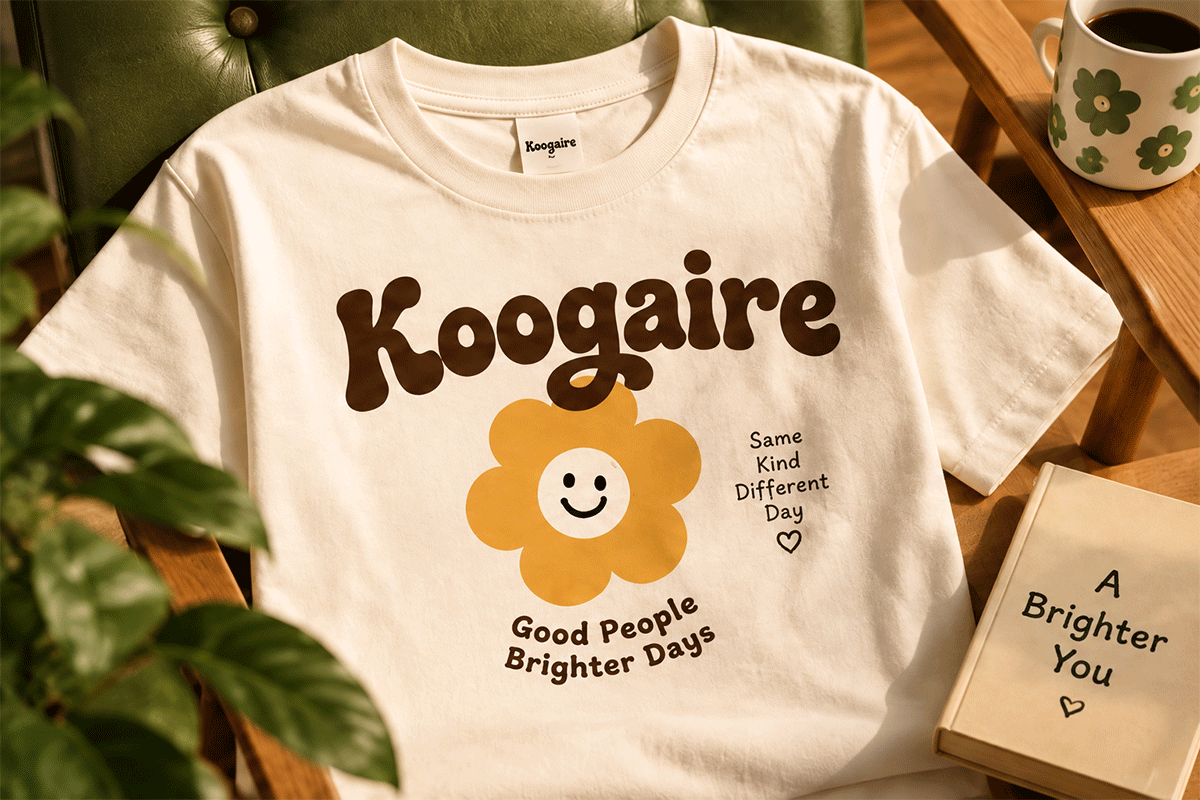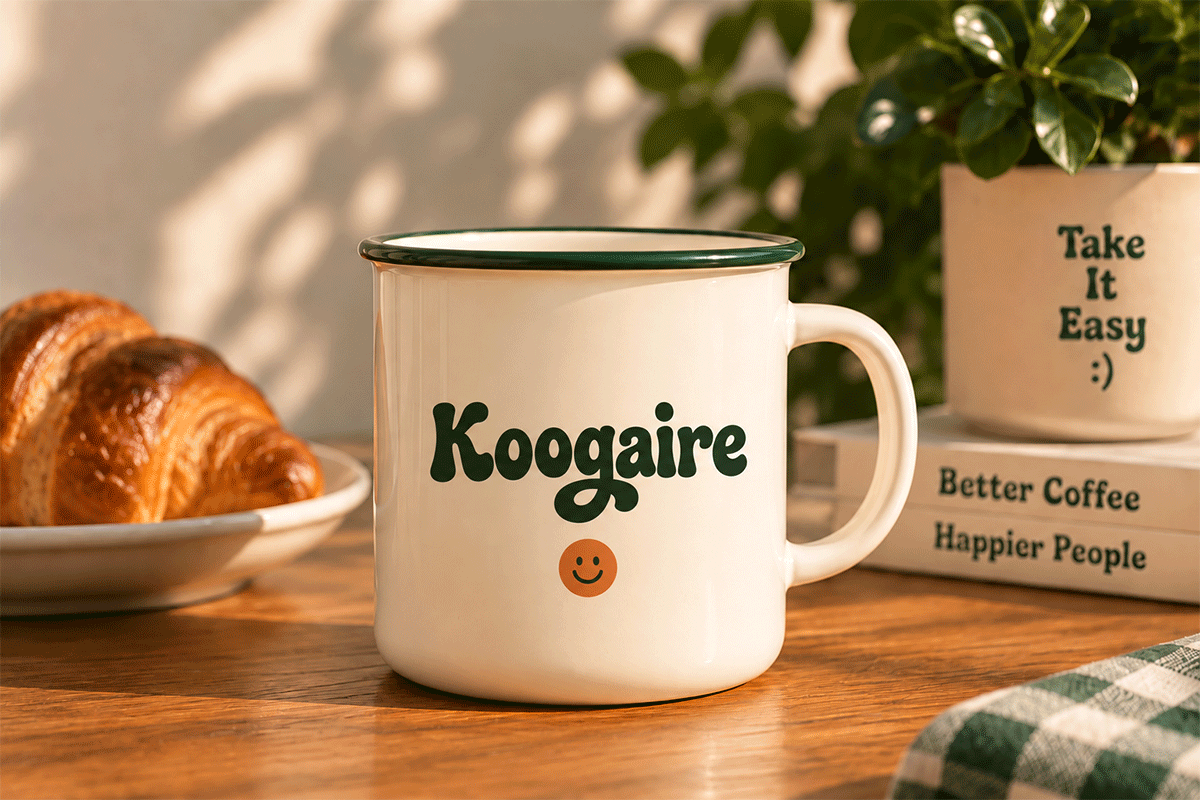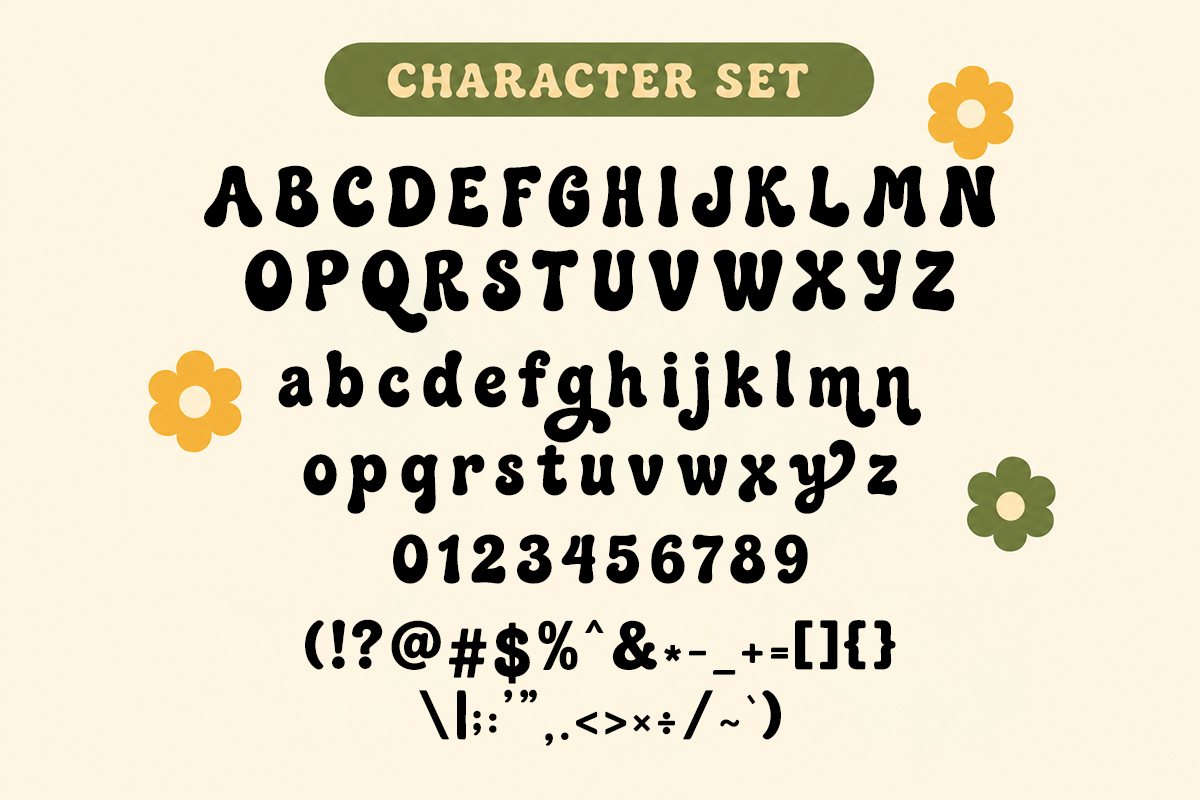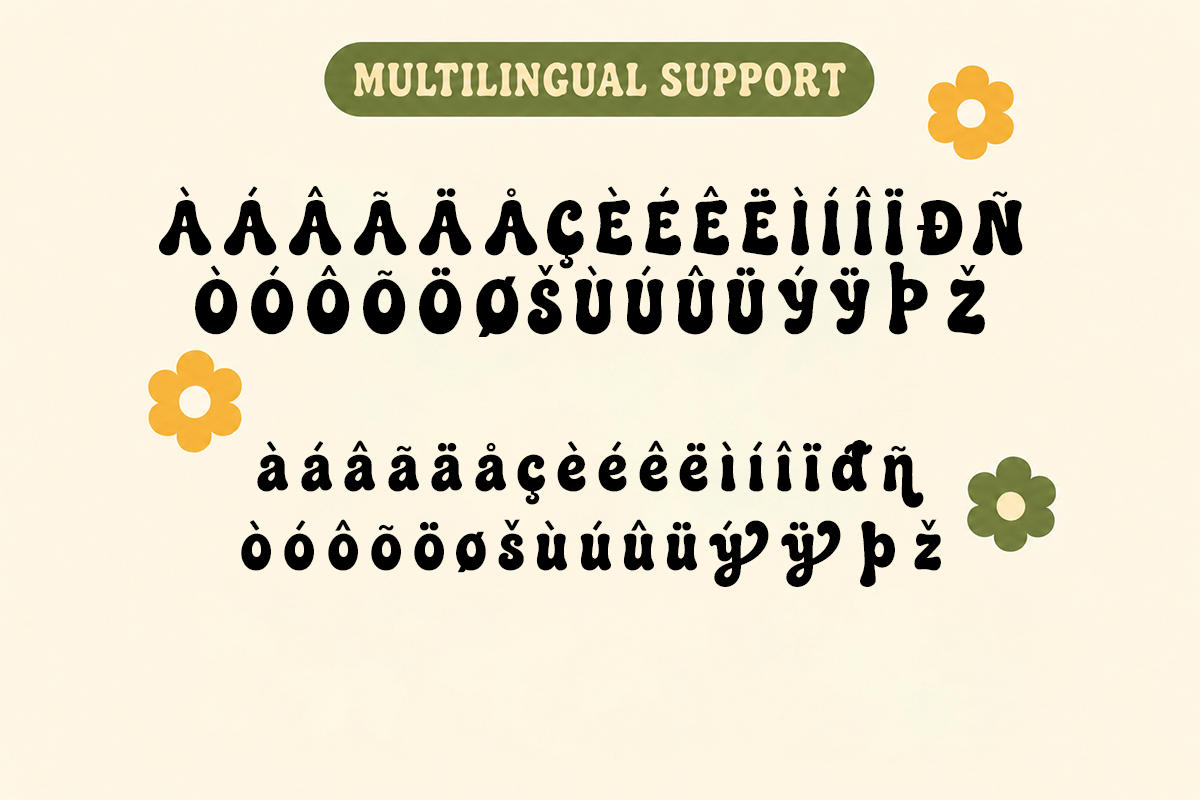
Koogaire A Modern Groovy Retro Font is a groovy font built for creative work that needs a playful and nostalgic personality. The design combines bouncy curves, expressive terminals, and a lively seventies-inspired rhythm, giving the typeface a clear visual identity without sacrificing practical readability for display use.
Koogaire is especially effective for music artwork, posters, fashion branding, stickers, packaging, social media, apparel, and event graphics. It can carry the main visual voice in a logo or headline, while still feeling cohesive across supporting graphics, campaign assets, packaging, and branded content.
The typeface pairs the direction of a groovy font with the character of a retro display font. This makes it a strong option when you want typography that feels intentional, memorable, and closely matched to the project mood instead of using a generic display face.
Recommended for:
- Music Artwork
- Posters
- Fashion Branding
- Stickers
- Packaging
- Social Media
- Apparel
- Event Graphics